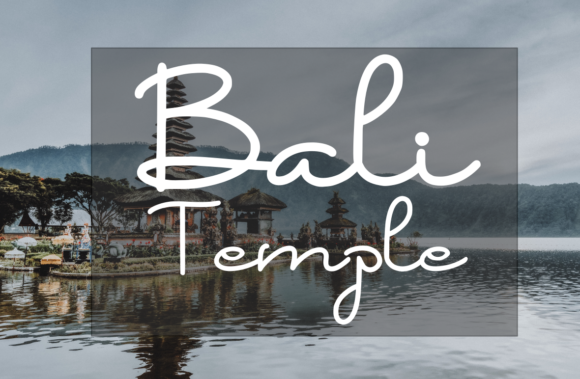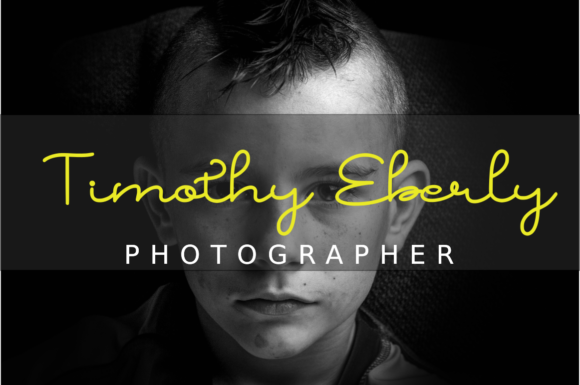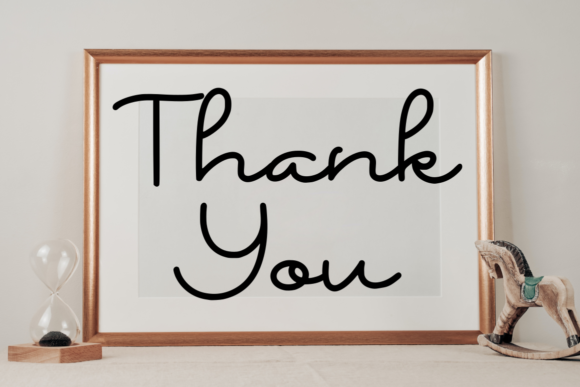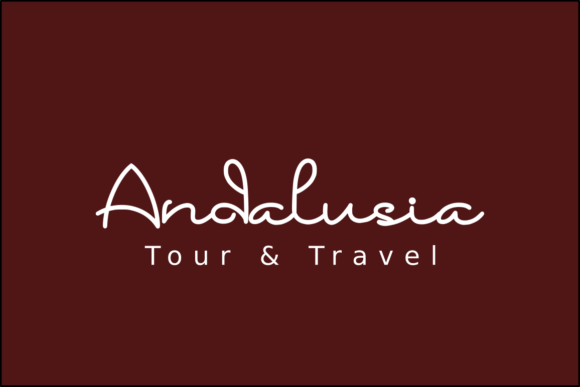
Samantha Font
About Samantha Font
Samantha is a beautiful and cursive handwritten font that exudes sweetness and elegance. With its gentle and flowing strokes, this font adds a touch of romance and charm to any design project. Whether you’re working on wedding invitations, greeting cards, logos, or any other creative endeavor, Samantha is sure to make your designs stand out.
The cursive nature of Samantha lends it a sense of fluidity and grace. Each letter seamlessly connects to the next, creating a harmonious and cohesive look. The elegant curves and loops of the characters add a touch of sophistication and whimsy to your typography.
With its versatility, Samantha can be used across a wide range of design ideas. It looks stunning on wedding stationery, giving a romantic and dreamy feel to invitations, save-the-dates, and thank-you cards. It also adds a special touch to quotes, posters, logos, and branding materials, infusing them with a sense of elegance and beauty.
Samantha is not only visually appealing but also highly legible, making it a practical choice for a variety of applications. Its clean and clear letterforms ensure that your message is easily read and understood by your audience.
By incorporating Samantha into your projects, you’ll infuse them with a sense of sweetness and beauty. Its cursive style and gentle curves create an inviting and warm atmosphere, captivating viewers and leaving a lasting impression.